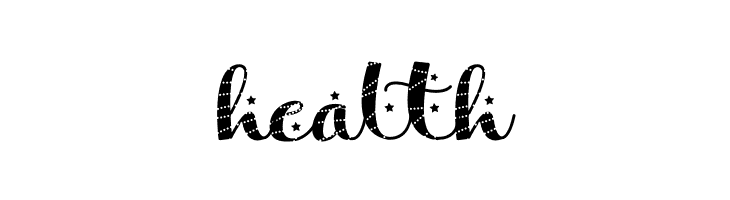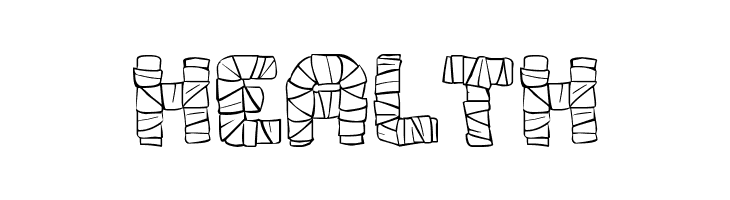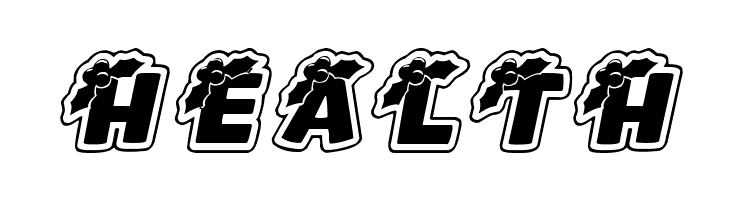
A playful and festive font with bold, curvaceous letters perfect for holiday themes.
A bold, spooky font with a dripping slime effect, ideal for Halloween themes.
A festive, decorative font with stars and stripes, perfect for holiday themes.
A playful, whimsical font with script and sans-serif elements, perfect for festive designs.
A bold, jagged font ideal for horror-themed designs.
A spooky, dripping font perfect for Halloween themes.
A spooky, bone-themed decorative font perfect for Halloween designs.
A playful, mummy-themed font with bandage-like wraps, perfect for Halloween designs.
A bold, festive font with a decorative icy outline, perfect for holiday themes.
A bold, dripping font perfect for spooky or playful themes.